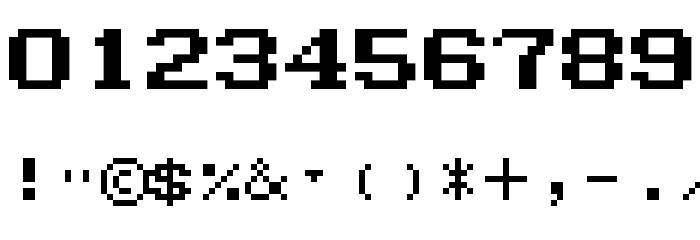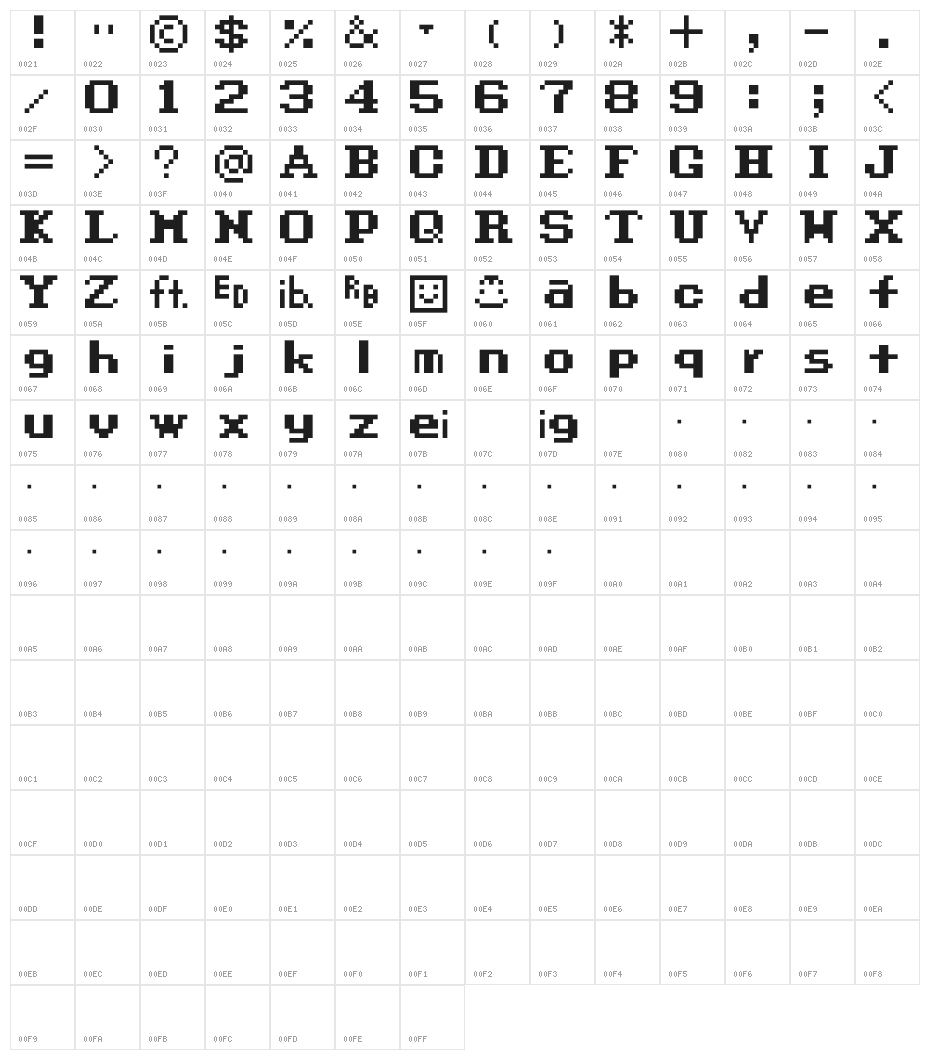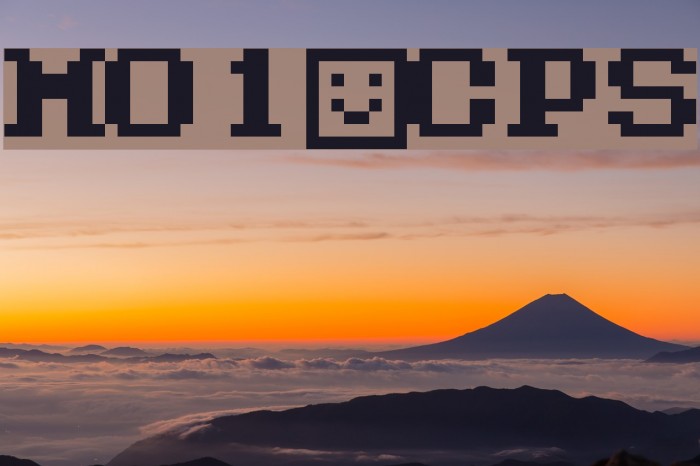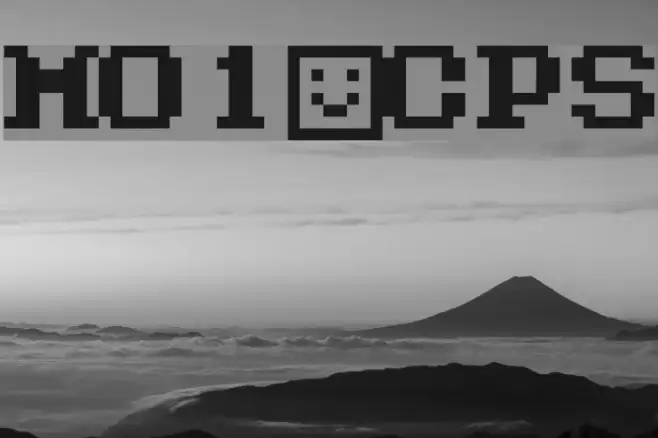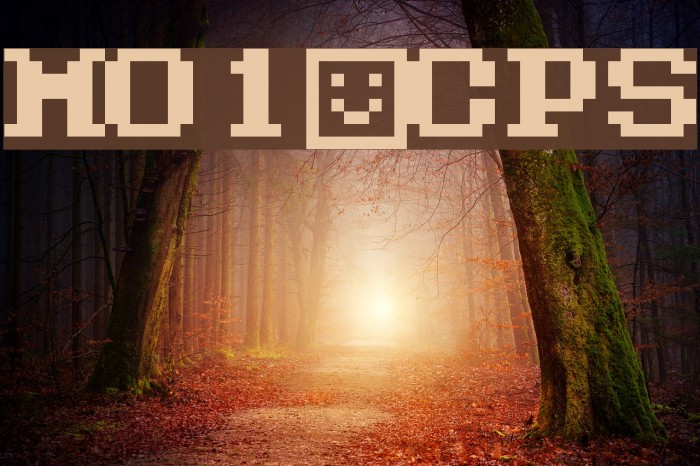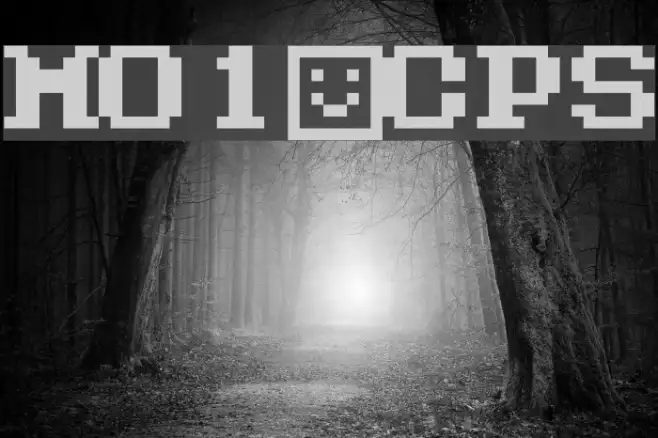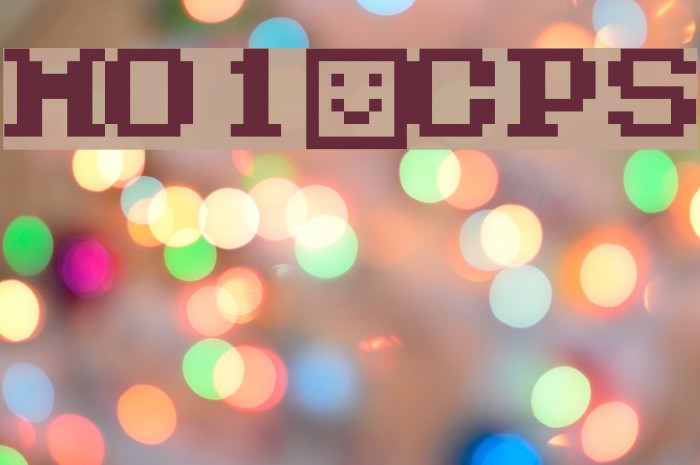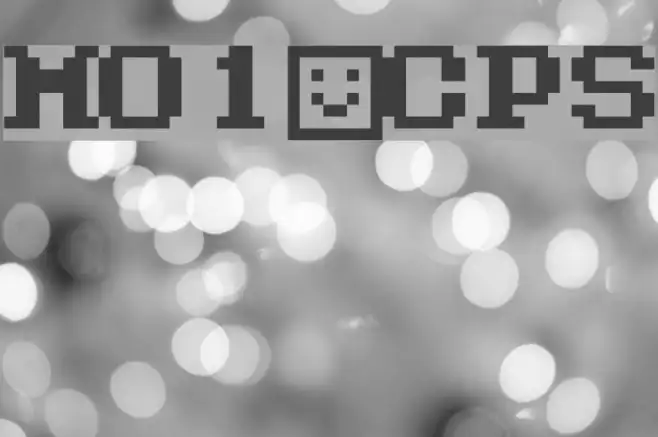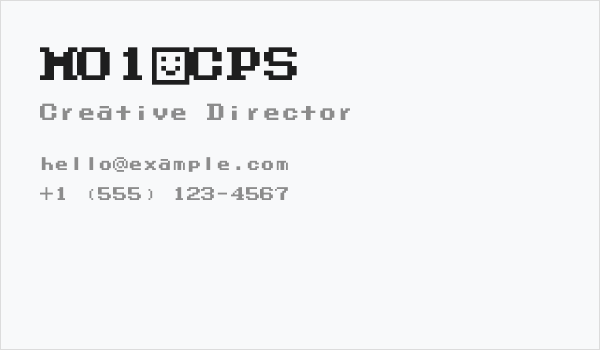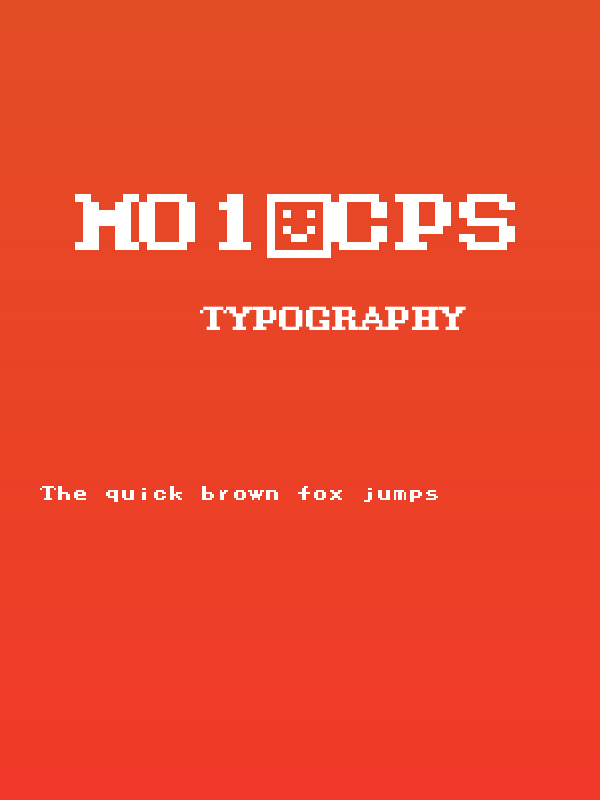
M01_CPS Font
M01_CPS Description
This font features a bold, pixelated style reminiscent of early digital or video game typography. The characters are blocky and geometric, with a consistent thickness throughout each letterform, giving it a uniform and structured appearance. The uppercase and lowercase letters maintain a similar width, enhancing the cohesive look. Numbers and special characters follow the same design principles, ensuring readability and a retro aesthetic. This font is ideal for projects that aim to evoke a sense of nostalgia or a digital theme, such as video game interfaces, retro-themed posters, or digital art projects.
| Proposed Projects | Ideal for video game design, retro-themed graphics, digital art, and tech-inspired branding. |